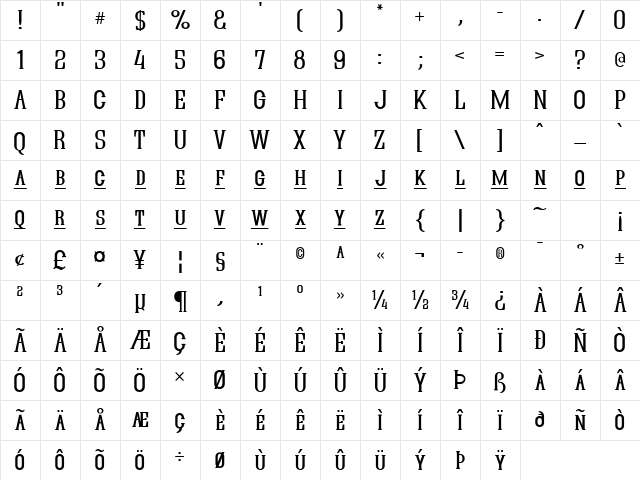
Quastic Kaps Line Regular Free Font
Quastic Kaps Line Regular
Foundry: Graham Meade,,,
Design Context for Quastic Kaps Line
Quastic Kaps Line is a composed and adaptable typeface that performs quietly and consistently across a wide range of design contexts.
Who designed the Quastic Kaps Line Regular font?